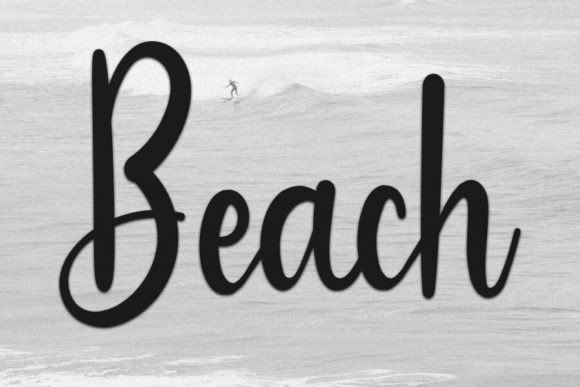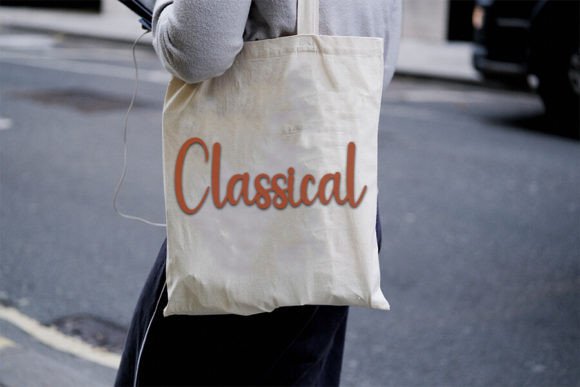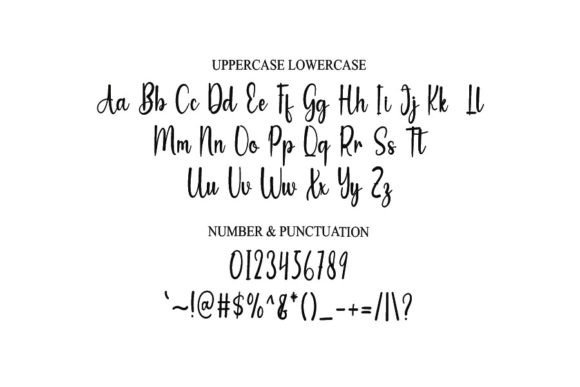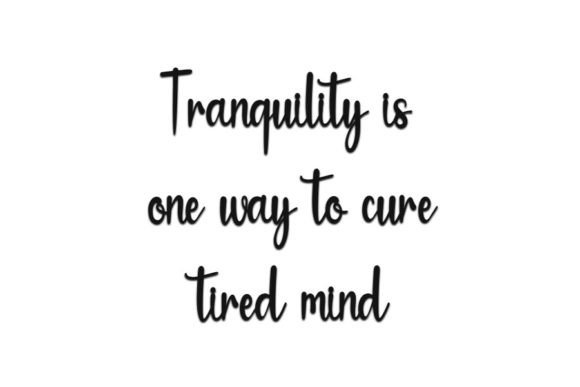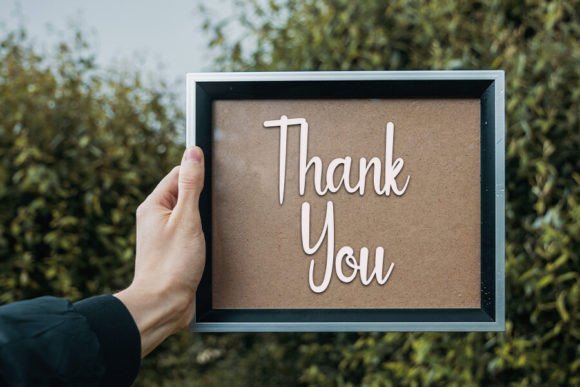
Introducing Bright Font: The Perfect Holiday Typeface for Your Designs
Are you looking for a font that embodies the spirit of the holiday season? Do you want to add a touch of charm and whimsy to your designs? Look no further than Bright Font, a festive and happy typeface that’s perfect for greeting cards, gift labels, and holiday-themed projects.
What Makes Bright Font So Special?
Bright Font is a unique and decorative typeface that’s designed to capture the magic of the holiday season. With its intricate details and flourishes, this font adds a touch of nostalgia and cheer to your words. Whether you’re creating holiday cards, gift tags, or social media graphics, Bright Font is the perfect choice.
Key Features of Bright Font
- Decorative Elements: Bright Font features a range of decorative elements, including intricate swashes, flourishes, and glyphs. These elements add a touch of whimsy and charm to your designs.
- PUA Coded: This font is PUA (Private Use Area) coded, which means you can access all the amazing glyphs and ligatures easily. This makes it simple to create beautiful and intricate designs.
- Unique Flair: Bright Font has a unique flair that’s perfect for holiday-themed projects. Its distinctive style sets it apart from other fonts and adds a touch of personality to your designs.
- Festive and Happy: This font is designed to capture the spirit of the holiday season. Its festive and happy vibe makes it perfect for creating holiday cards, gift labels, and other seasonal designs.
Bright Font is perfect for designers and crafters who want to add a touch of holiday cheer to their projects. Whether you’re creating digital designs or handmade crafts, this font is the perfect choice. Here are just a few ways you can use Bright Font:
- Greeting Cards: Create beautiful and festive holiday cards with Bright Font. Its decorative elements and unique flair make it perfect for capturing the spirit of the season.
- Gift Labels: Add a touch of charm to your gift labels with Bright Font. This font is perfect for creating personalized and festive gift tags.
- Holiday-Themed Projects: Bright Font is perfect for holiday-themed projects, such as social media graphics, blog posts, and website headers.
- Crafting Projects: If you’re a crafter, Bright Font is a great addition to your design toolkit. Use it to create festive and fun projects, such as handmade cards, gift tags, and decorations.
Tips for Using Bright Font
Here are a few tips for using Bright Font in your designs:
- Experiment with Glyphs and Ligatures: With its PUA coding, Bright Font gives you access to a range of glyphs and ligatures. Experiment with these to add a touch of whimsy and charm to your designs.
- Pair with Other Fonts: Bright Font pairs well with other fonts, such as sans-serif fonts and script fonts. Experiment with different pairings to find the perfect combination for your design.
- Use in Digital and Print Designs: Bright Font is perfect for both digital and print designs. Use it to create festive and fun designs for social media, websites, and print materials.
Bright Font is a festive and happy typeface that’s perfect for capturing the spirit of the holiday season. With its decorative elements, unique flair, and PUA coding, this font is a great addition to any design toolkit. Whether you’re a designer or crafter, Bright Font is the perfect choice for holiday-themed projects. So why wait? Download Bright Font today and add a touch of holiday cheer to your designs!